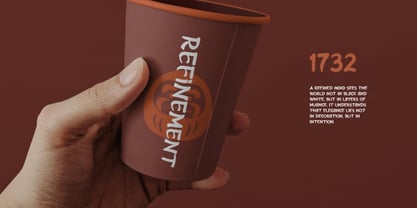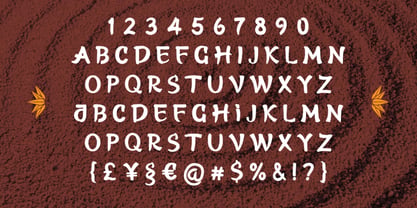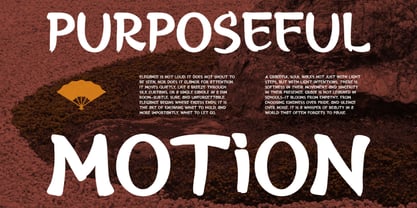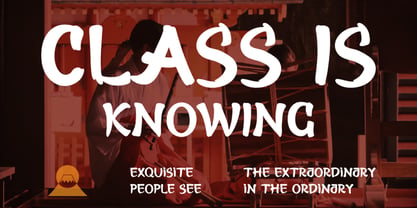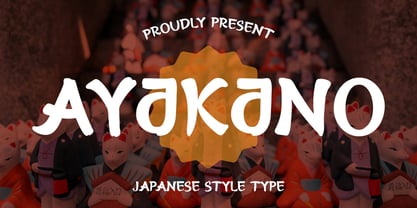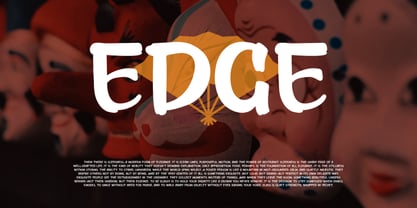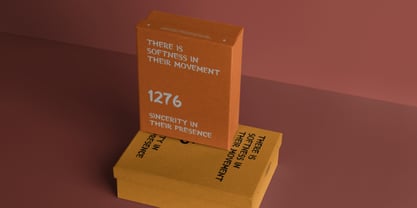
Ayakano
The Ayakano Font Family was designed by Moch Rasjid Wiyono and published by Brandearth. Ayakano contains 1 styles. More about this family
Ayakano is a bold Japanese-style display font featuring handcrafted brush strokes, organic curves, and slightly irregular shapes that create an expressive and cultural character. The typeface includes uppercase, lowercase, numerals, punctuation, and symbols with consistent weight and strong readability for large-scale compositions. Relevance and Use Cases is perfect for restaurant branding, ramen shops, sushi packaging, street food stalls, cultural festivals, travel posters, craft products, merchandise design, editorial covers, social media graphics, and bold headline compositions that need an authentic Japanese visual atmosphere.